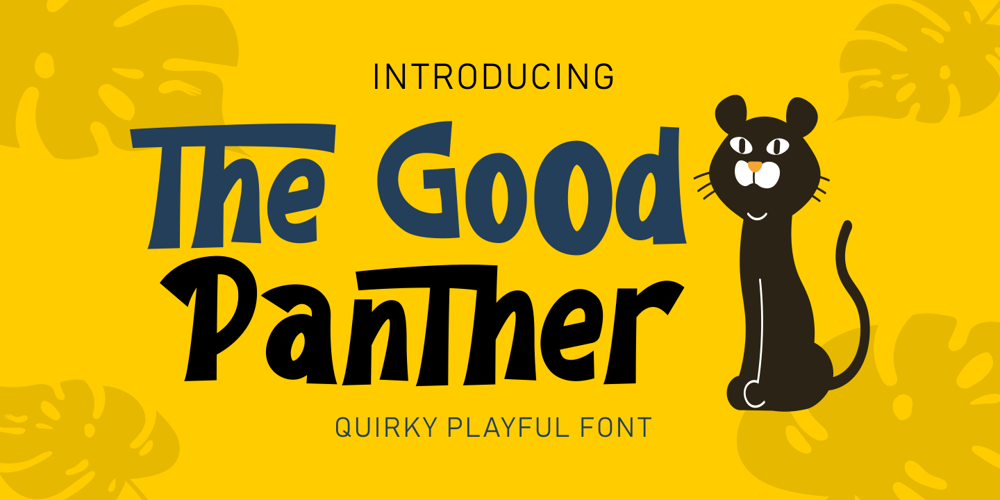
The Good Panther Font Family was designed by Putra Novembria Candra Kusuma and published by Putracetol. The Good Panther contains 1 styles and family package options. The Good Panther – Bold Quirky Display Font. The Good Panther a bold, quirky display font with a fun and trendy cute characters.With a childish style, it will be very suitable for your project, which is related to children. Such as story books, illustrations, comic books, t-shirts, posters, greeting cards, logos, branding, stickers, svg, crafting.The alternative characters were divided into several Open Type features such as Swash, Stylistic Sets, Stylistic Alternates, Contextual Alternates, and Ligature. The Open Type features can be accessed by using Open Type savvy programs such as Adobe Illustrator, Adobe InDesign, Adobe Photoshop Corel Draw X version, And Microsoft Word. This font is also support multi language.